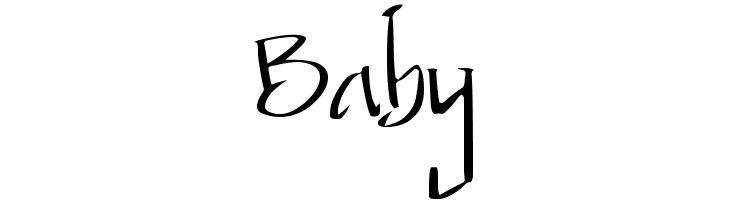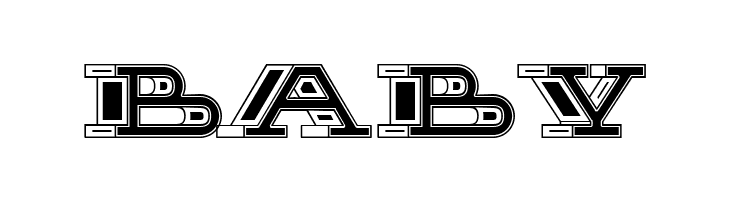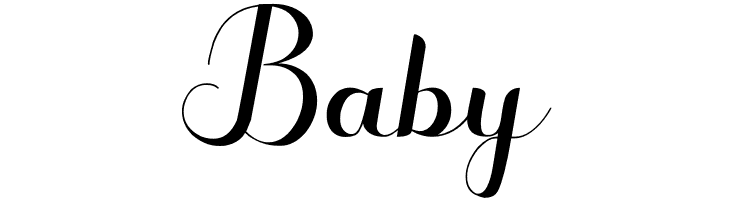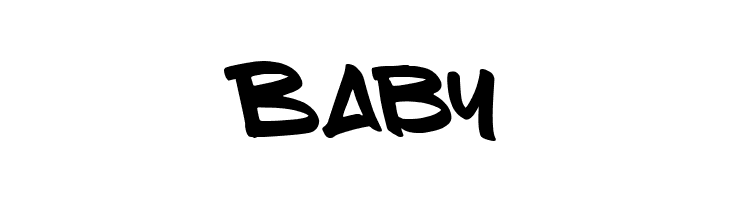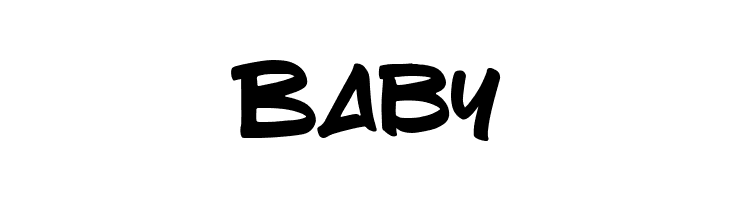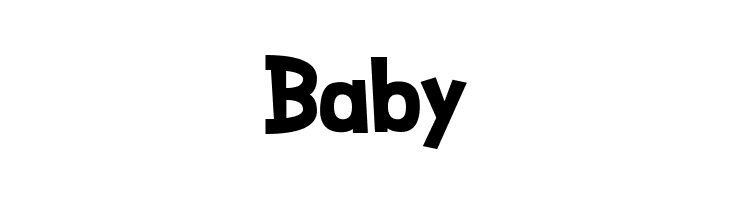
A bold, artistic font with a hand-drawn, whimsical style.
A graceful script font with fluid, cursive strokes and decorative flourishes.
A modern, elegant script font with flowing, handwritten characteristics.
A bold, three-dimensional font with vintage-inspired geometric letterforms.
An elegant script font with flowing curves and intricate swashes.
An elegant and flowing script font with graceful curves and fluid strokes.
A bold, playful font with rounded, whimsical characters.
A bold, playful handwritten font with thick strokes and a lively style.
A bold, playful handwritten font with a dynamic, tilted style.